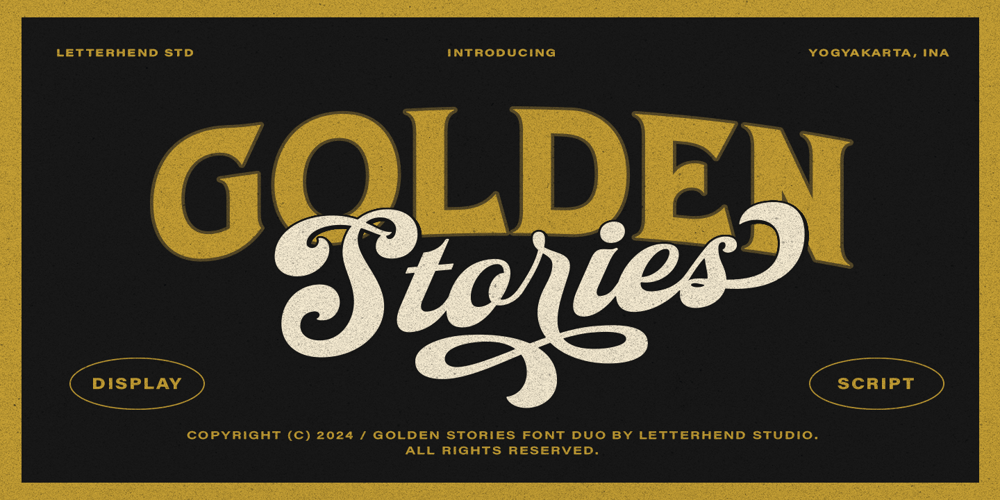
Golden Stories Font Family was designed by Hendry Juanda and published by Letterhend. Golden Stories contains 2 styles and family package options. Golden Story is a vintage duo display typeface with the touch of nostalgic feel. The bold script and classic display looks make this font standout to be used as a title or a logo. This font is perfectly made to be applied especially in logos, and the other various formal forms such as invitations, labels, magazines, books, greeting / wedding cards, packaging, fashion, make up, stationery, novels, labels or any type of advertising purpose.Features : Uppercase & lowercase Numbers and punctuation Alternates & Ligatures Multilingual Support PUA encoded